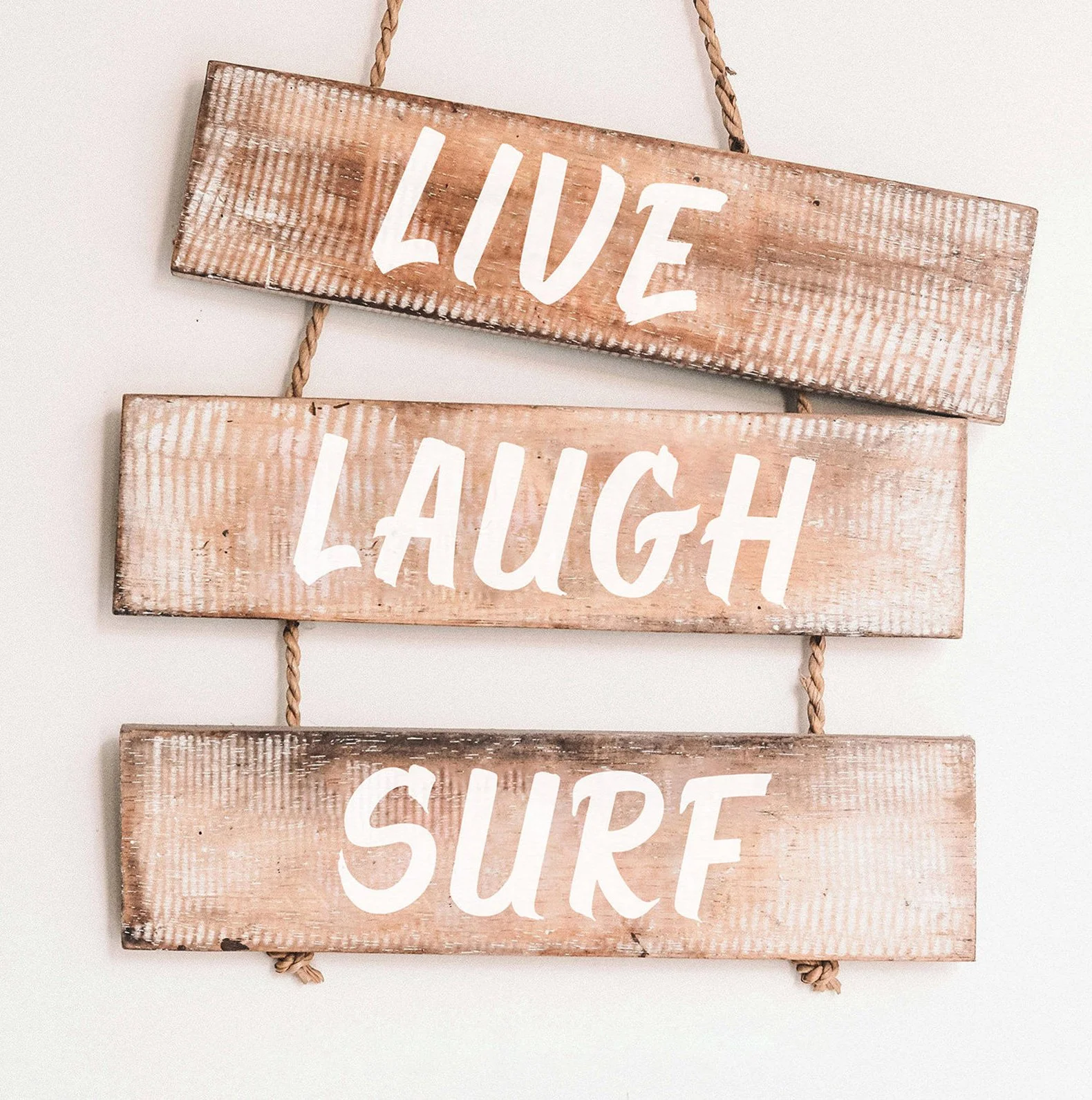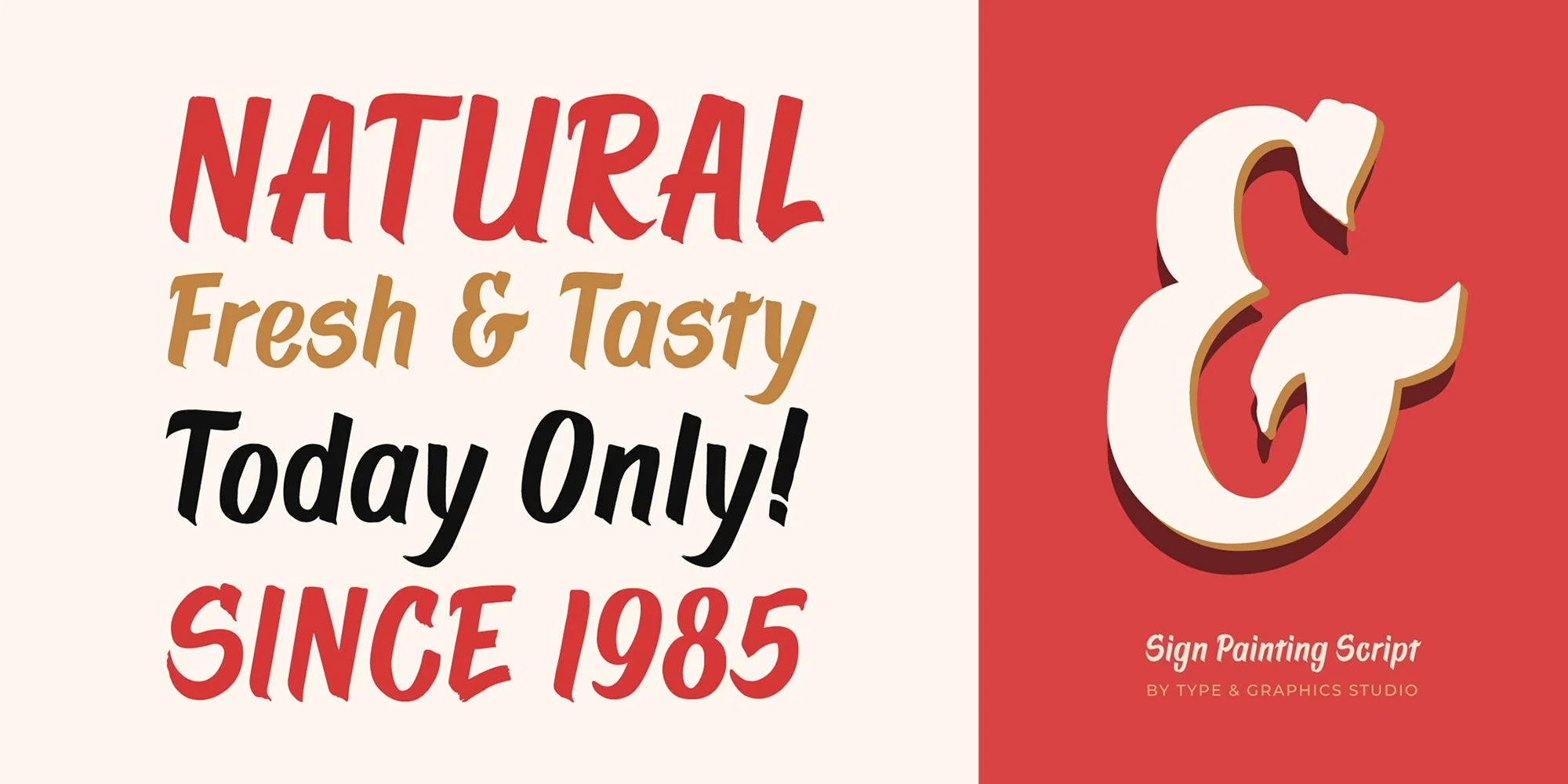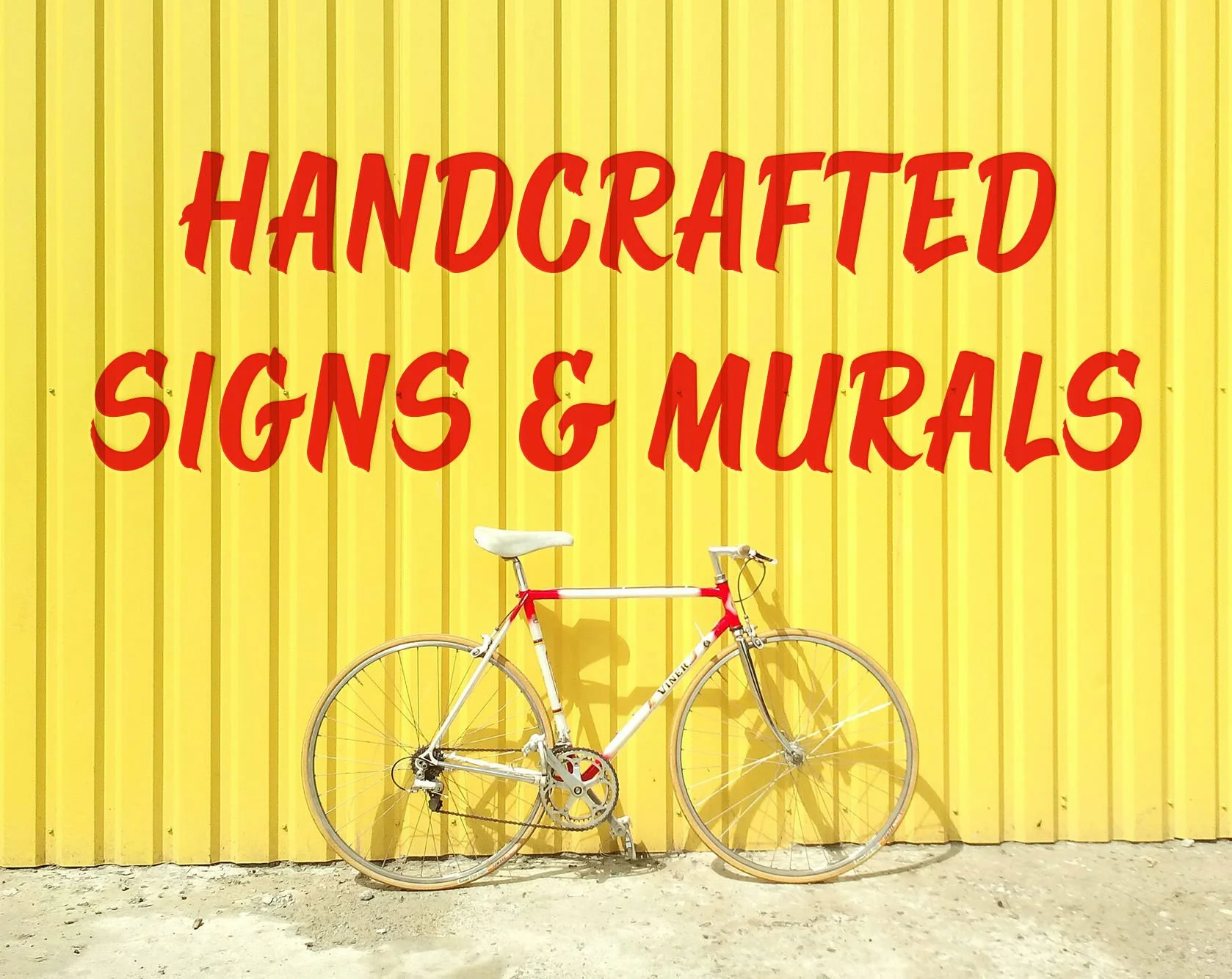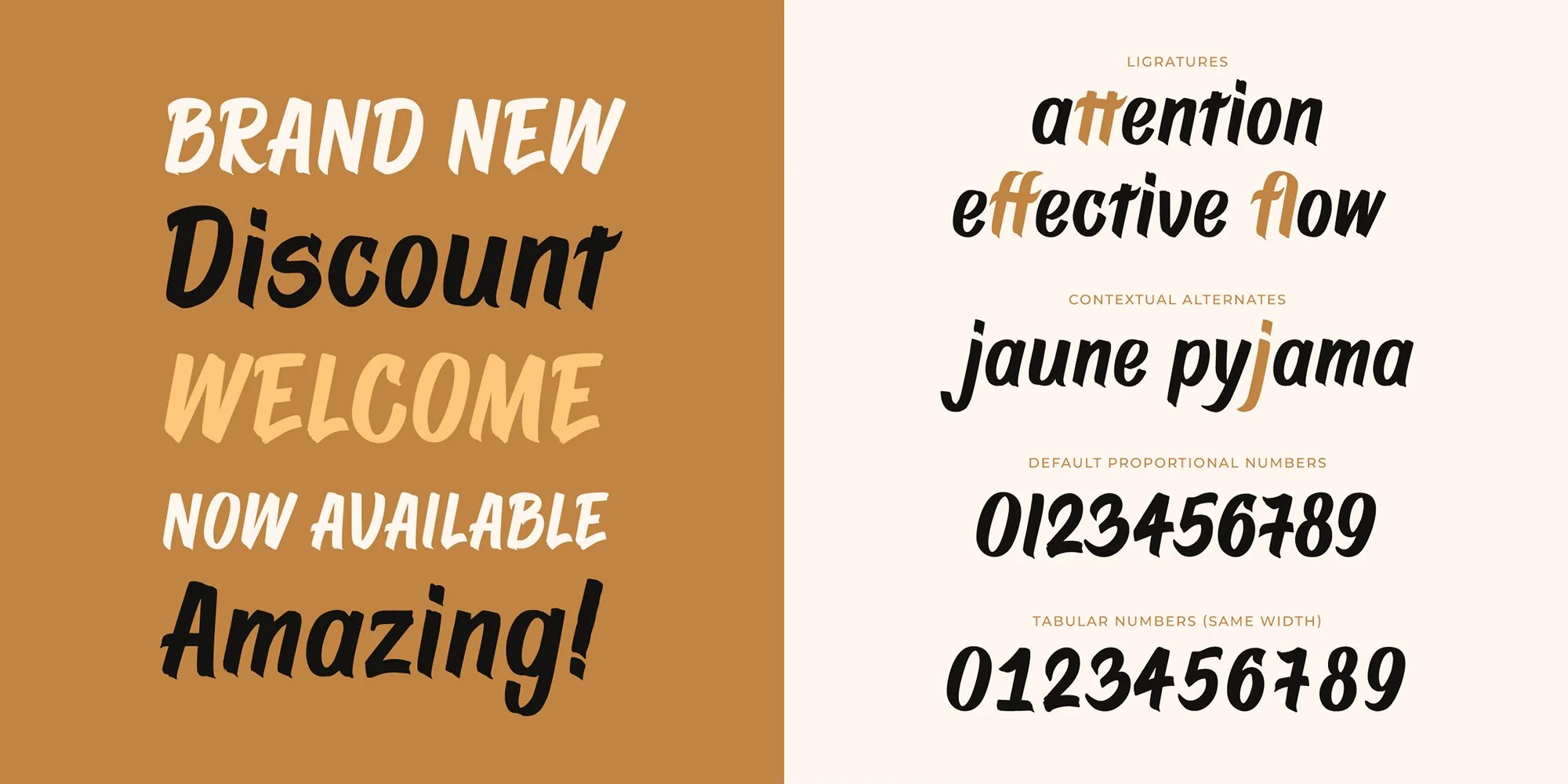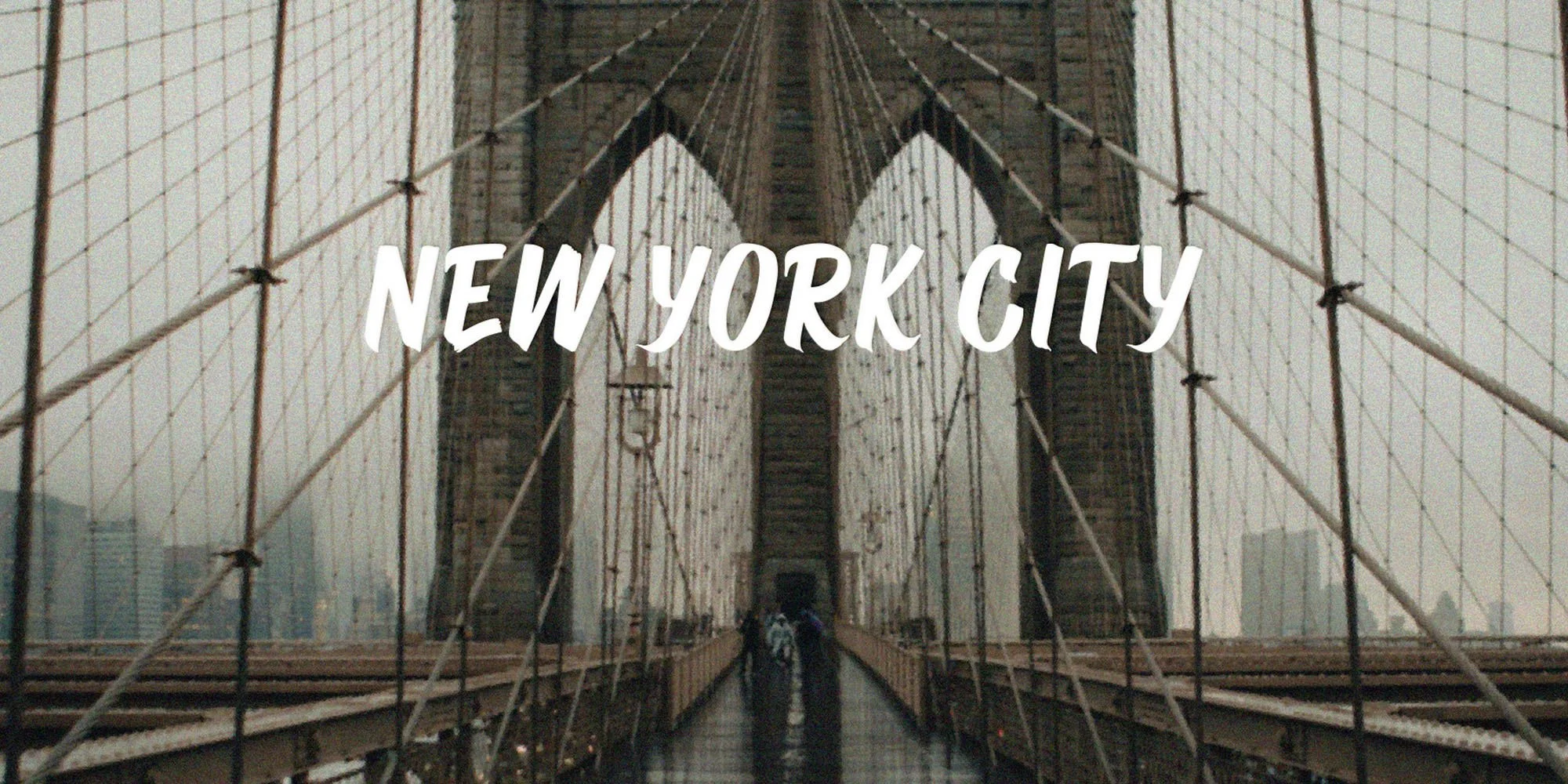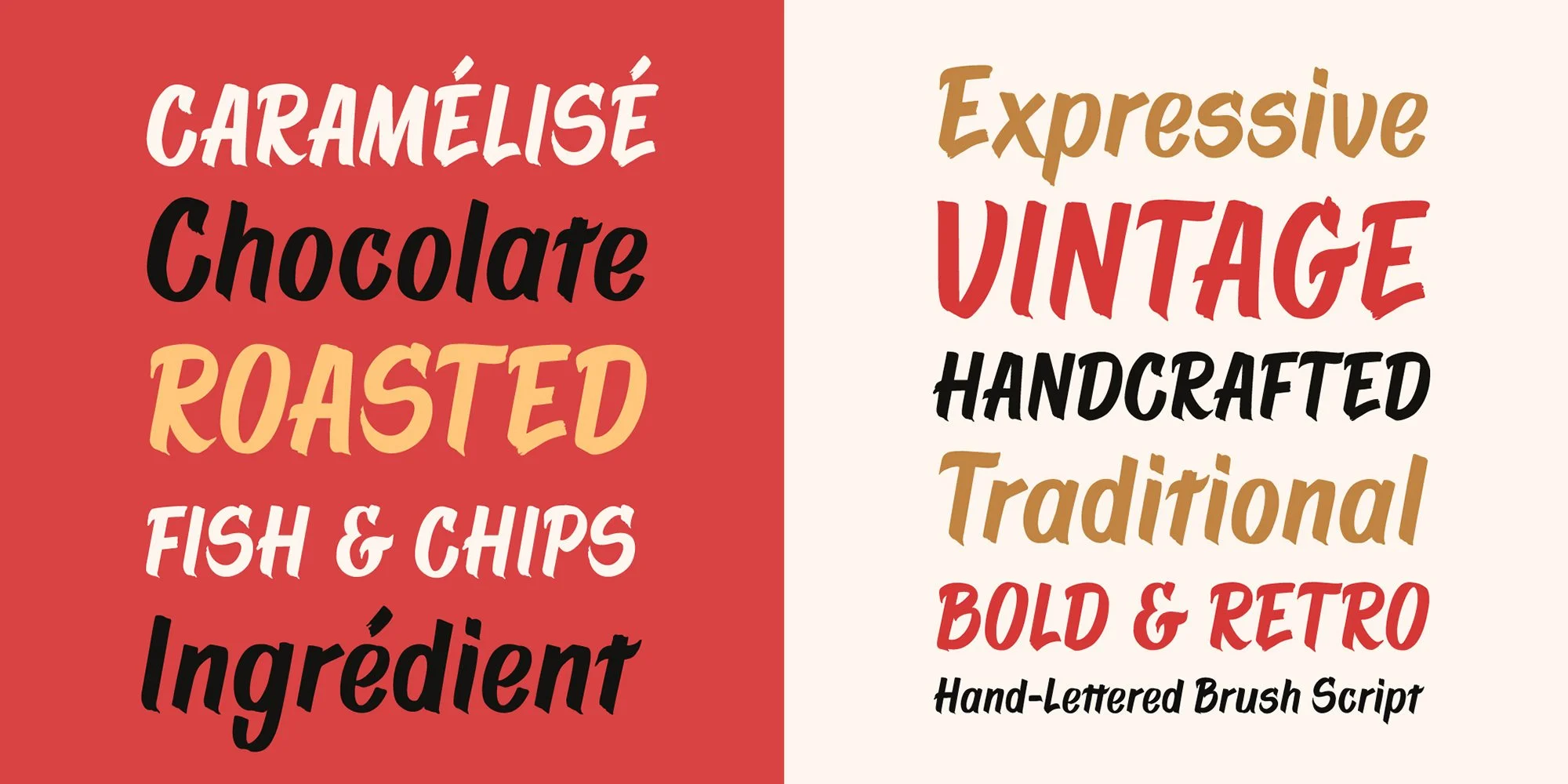
Sign Painting Script
Inspired by hand-painted signage, Sign Painting Script reflects the character of traditional lettering
Sign Painting Script is a display typeface based on classic sign painting from the United States. It captures the rhythm and personality of hand-lettered forms while being carefully refined for consistent use in contemporary design. The font includes uppercase and lowercase letters, numerals, punctuation, ligatures, and extended Latin support, making it suitable for logos, posters, packaging, and both print and digital applications.